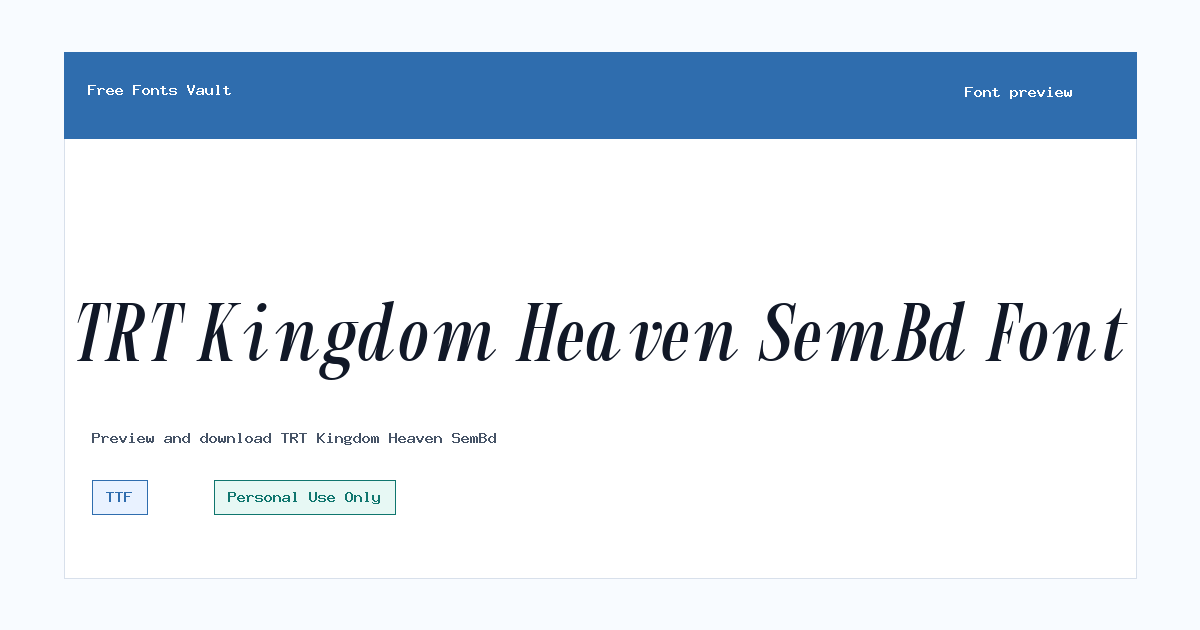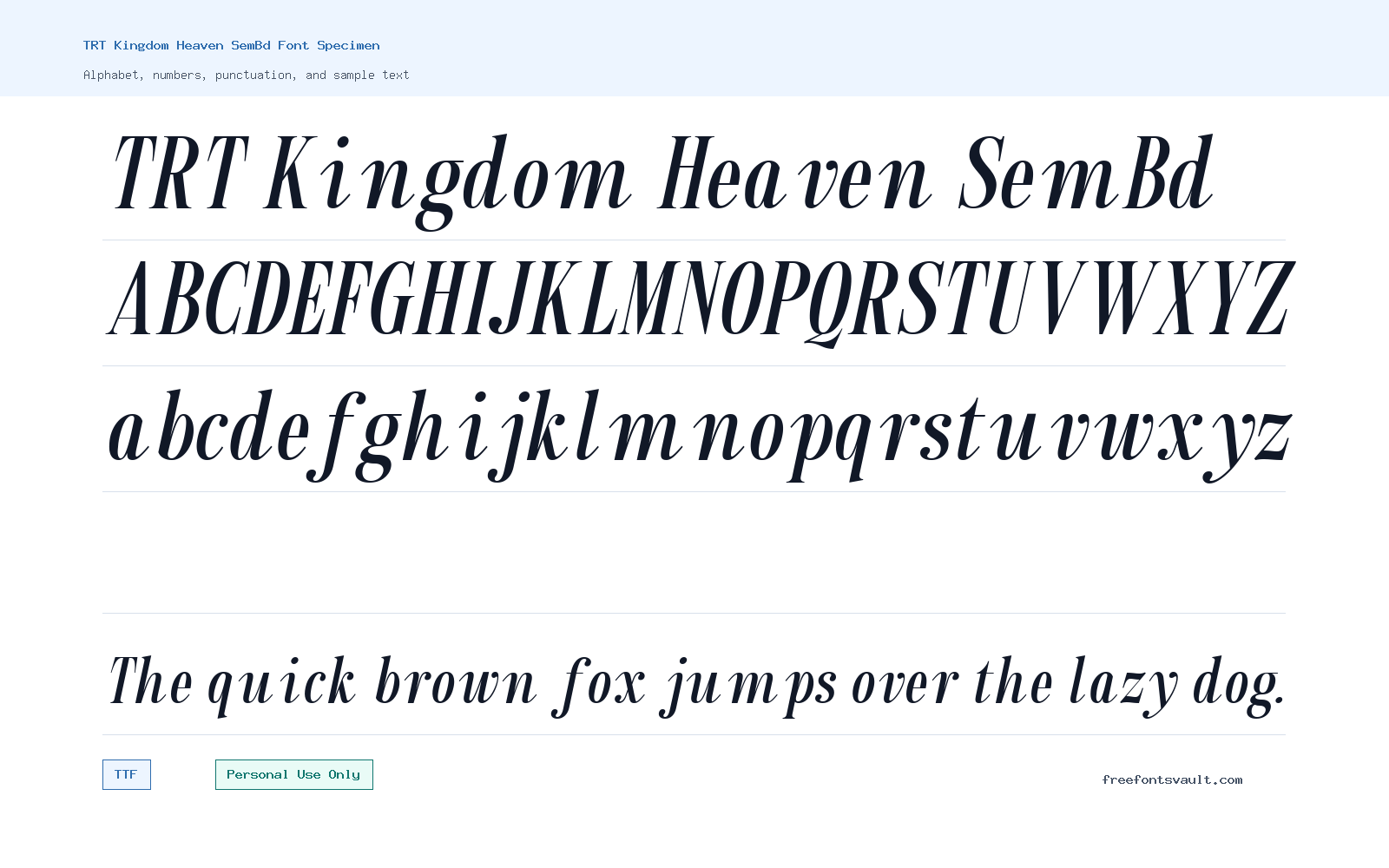
TRT Kingdom Heaven SemBd
TRT Kingdom Heaven SemBd font.
TRT Kingdom Heaven SemBd is a display-focused serif font from the TRT Kingdom Heaven family. Its semi-bold weight gives headings, names, and short lines a firm presence while keeping the look cleaner than a heavy poster face.
About TRT Kingdom Heaven SemBd
TRT Kingdom Heaven SemBd works best when you need a serif style with more weight than a regular text face, but not so much weight that the letters feel crowded. The family name points to a decorative serif direction, and the available semi-bold files are suited to short, visible typography rather than long reading blocks. Use it for title lines, brand-style mockups, invitation headings, social graphics, packaging concepts, quote cards, and other places where the font has enough space to show its shape.
- Semi-bold serif styling for headings, names, and short display text
- Useful for testing title treatments, invitation-style text, and personal design mockups
- Logotype drafts and personal branding mockups
- Invitation headings, name cards, and event title layouts
- Poster titles, quote graphics, and social media artwork
- Packaging concepts, labels, and decorative headline tests
For the cleanest result, use TRT Kingdom Heaven SemBd in short text where the serif details can breathe. Start with headlines, names, or two-to-five-word phrases, then adjust spacing if the letters feel dense. Avoid relying on it for small paragraphs or interface text, because a display serif with semi-bold weight can lose clarity at small sizes. If your project may be public or commercial, resolve the license first before final artwork.
What kind of font is TRT Kingdom Heaven SemBd?
It is a serif display font from the TRT Kingdom Heaven family, with a semi-bold style intended for stronger title and heading use.
What should I pair this font with?
Pair it with a simple sans serif or a quiet text serif. Let TRT Kingdom Heaven SemBd handle the title while the companion font handles longer readable text.